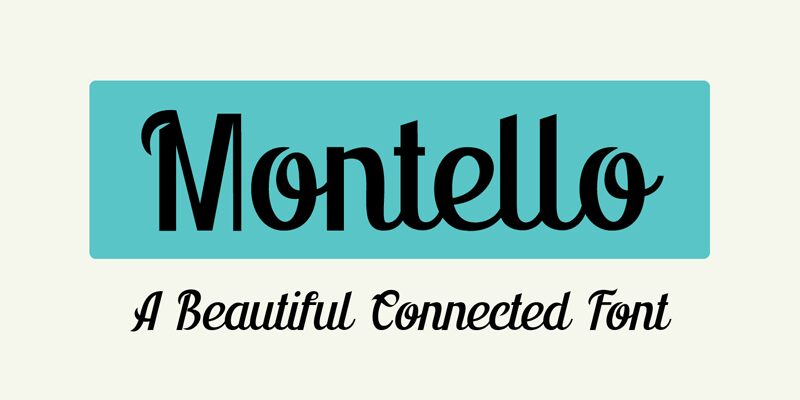
Montello DEMO Regular
Montello, a captivating handwritten font crafted by David Kerkhoff, exudes a warm, organic charm that captivates the senses. With its playful yet elegant strokes, this font artfully blends the feel of a personal handwritten inscription with a refined, modern aesthetic. The slight variations in the letter forms and the authentic, hand-drawn appearance lend an unmistakable character that evokes a sense of authenticity and individuality.
Montello's versatility shines through its ability to seamlessly adapt to a wide range of design applications, from captivating branding and packaging to eye-catching headlines and impactful editorial layouts. Its organic, handcrafted quality makes it a compelling choice for projects seeking to convey a personal, handmade touch, while its refined execution ensures a polished and sophisticated final result.